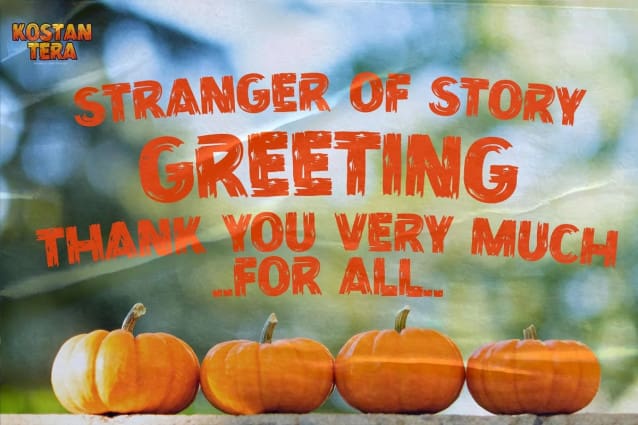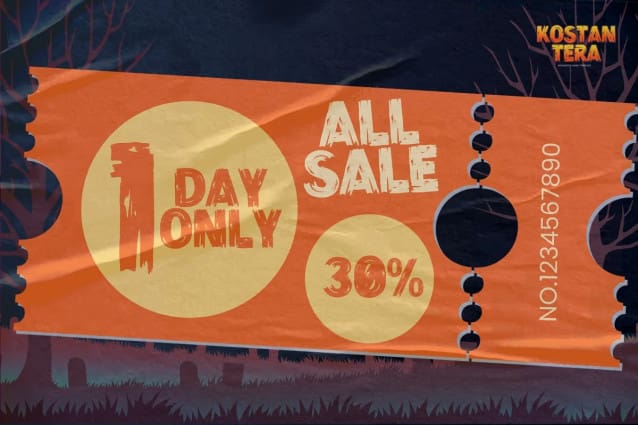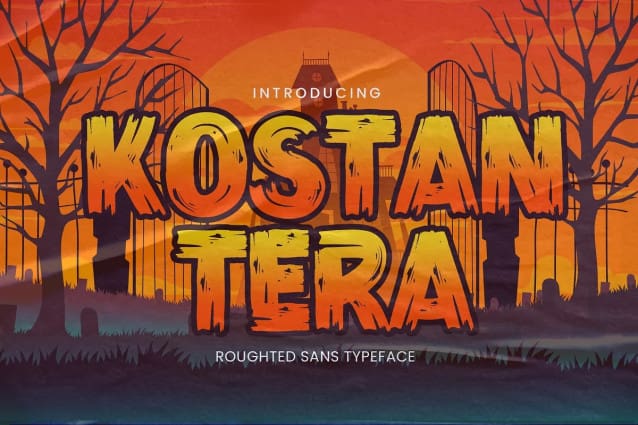
Kostantera Brush Font
Kostantera Brush Font is Roughted Sans Typeface that is written casually and quickly. Letters are made with brushes on Procreate. Then crafted carefully drawn into vector format. That is why KOSTANTERA has charming, authentic and relaxed characteristic more natural look to your text with a more natural look to your text. design more interesting. KOSTANTERA is perfect for homeware designs,branding projects, Logo design, Quotes product packaging